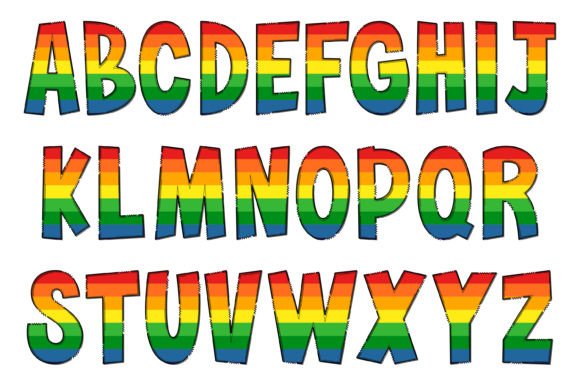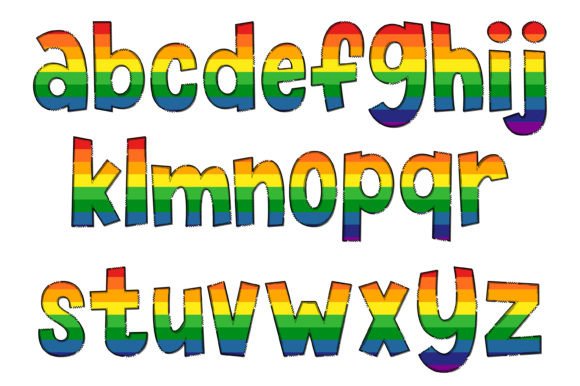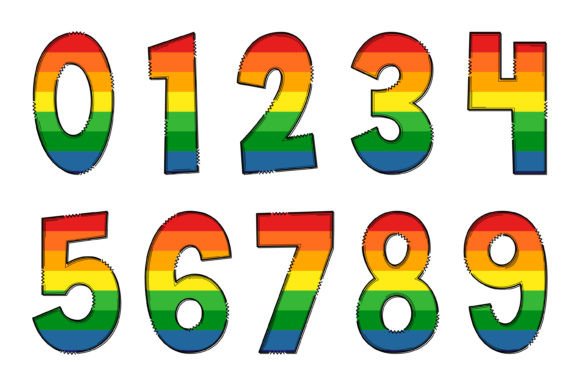
Introduction to Rainbow Colors Font Font
Fonts play a crucial role in design, and the Rainbow Colors Font font is a typeface that brings both character and versatility to any project. Whether you’re working on a branding project, a website, or a print design, the Rainbow Colors Font font offers a unique style that can elevate your work.
Rainbow Colors can be used to convey a playful or artistic feel, such as childrenβs books, posters, invitations, greeting cards, and more.
Key Features of Rainbow Colors Font Font
Why Choose Rainbow Colors Font Font?
The Rainbow Colors Font font is more than just a typeface β it’s a design tool that helps you communicate your message with style and clarity. Its unique character set and versatile design make it suitable for a wide range of applications, from elegant invitations to bold headlines.
With its carefully crafted letterforms and balanced proportions, the Rainbow Colors Font font ensures readability and visual appeal across all mediums.
What makes Rainbow Colors Font font special?
The Rainbow Colors Font font stands out with its unique design, exceptional readability, and versatility across various design applications.